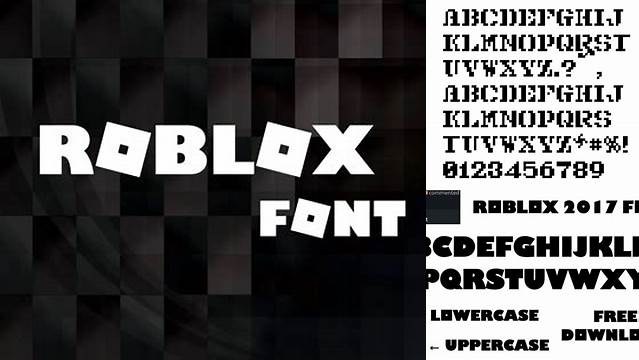
Hey guys! Are you looking to add that classic Roblox feel to your designs? Well, you've come to the right place! In this article, we're diving deep into everything you need to know about Roblox pixel fonts, including where to find them, how to use them, and why they're so darn cool. So, buckle up and let's get started!
1. What is a Roblox Pixel Font?
Let's kick things off by understanding what we mean by a Roblox pixel font. Imagine those retro video games with their blocky, 8-bit text β that's the essence of a pixel font. A pixel font is a typeface designed where each character is made up of individual pixels, giving it a distinct, vintage look. In the context of Roblox, these fonts mimic the style often found in the game's interface, older games within the platform, or fan-made creations that aim for that nostalgic vibe. Using a Roblox pixel font can instantly transport your audience back to the golden age of gaming, making it a powerful tool for branding, graphics, and content creation. Think about how many iconic games use pixel fonts β itβs a visual shorthand for retro gaming, and incorporating that into your projects can be super effective.
2. Why Use Pixel Fonts for Roblox-Related Projects?
So, why should you even bother with pixel fonts for your Roblox-related projects? There are actually several compelling reasons. First off, it's about authenticity. If you're creating fan art, thumbnails, or even your own Roblox-inspired game, using a pixel font instantly connects your work to the platform's aesthetic. It's like using the right colors or character designs β it just feels right. Secondly, pixel fonts are incredibly versatile. They can evoke nostalgia, convey a sense of simplicity, or even add a touch of whimsy to your designs. Plus, theyβre super readable, especially in smaller sizes, which makes them perfect for on-screen text in games or graphics. Imagine crafting a Roblox game trailer β a pixel font in the title card immediately signals to your audience that this is something they'll resonate with. Furthermore, using the correct font can help establish a consistent visual language across all your Roblox-related endeavors, reinforcing your brand identity and making your content instantly recognizable. So, yeah, pixel fonts are pretty awesome for this stuff.
6. Using Pixel Fonts in Roblox Studio
Now, let's talk about using those pixel fonts directly in Roblox Studio. If you're creating games or experiences on the Roblox platform, incorporating a pixel font can add a real retro touch to your UI, dialogues, and in-world text. However, Roblox Studio doesn't directly support custom fonts in the traditional sense. Instead, you'll often need to use image labels or text labels and manually create your text using a pixel font in an image editing program like Photoshop or GIMP. This might sound a bit tedious, but it gives you a ton of control over the appearance of your text. Another option is to use plugins or scripts that allow for custom font rendering within Roblox Studio. These can be a bit more technical to set up, but they can streamline the process of using pixel fonts in your projects. Just remember to optimize your text for readability, especially on different screen sizes. A crisp pixel font can look fantastic, but a blurry or illegible one will detract from your game's overall appeal. So, experiment, iterate, and find the perfect balance for your Roblox creations!
7. Creating Pixel Art with Pixel Fonts
Did you know that pixel fonts can also be a fantastic tool for creating pixel art itself? Think about it β each character in a pixel font is essentially a mini pixel art design. You can use these characters as building blocks to create larger images, patterns, and even animations. For example, you could use a pixel font to create the outlines of a character or object, and then fill in the details with individual pixels. Or, you could use different characters from a font to create textures and shading effects. The possibilities are truly endless! Plus, using pixel fonts in this way can give your pixel art a unique and consistent style. It's a great way to add a retro flair to your artwork, whether you're creating game assets, social media graphics, or just having fun. So, next time you're looking for a new way to approach pixel art, consider giving pixel fonts a try. You might be surprised at what you can create!
8. Free Pixel Font Generators
If you're feeling extra creative, why not try your hand at designing your own pixel font? There are several free pixel font generators available online that make the process surprisingly easy. These tools typically provide a grid-based interface where you can draw each character pixel by pixel. You can adjust the size of the grid, the thickness of the pixels, and even the spacing between letters. Some generators also offer advanced features like kerning adjustments and font preview options. Creating your own font gives you complete control over its design, allowing you to craft a typeface that perfectly matches your project's aesthetic. Plus, it's a fun way to learn about typography and the intricacies of font design. Once you've finished creating your font, you can usually download it in a standard format like .ttf or .otf, making it compatible with most design software. So, if you're looking to add a truly unique touch to your projects, consider giving a pixel font generator a whirl. You might just discover your inner font designer!
9. Best Pixel Fonts for Retro Games
When it comes to retro games, the right pixel font can make all the difference. It's not just about readability; it's about capturing the nostalgic feel of those classic titles. So, what are some of the best pixel fonts for retro games? One popular choice is "Press Start 2P," a font that perfectly mimics the 8-bit style of old-school arcade games. It's clean, crisp, and instantly recognizable. Another great option is "8Bit Operator," which has a slightly more rounded and friendly feel. If you're looking for something with a bit more character, "Fixedsys Excelsior" is a fantastic choice, inspired by the system font used in older versions of Windows. This font has a distinct, slightly gritty look that's perfect for games with a darker or more industrial tone. Remember, the best pixel font for your retro game will depend on its overall style and theme. Consider the era you're trying to evoke, the mood you're trying to create, and the readability of the font at different sizes. With a little experimentation, you'll find the perfect typeface to transport your players back in time!
30. The Best Free Resources for Learning More About Pixel Fonts
Want to become a pixel font expert? The good news is that there are tons of free resources available online to help you learn more! Websites like FontSpace and DaFont often have articles and tutorials about typography, including pixel fonts. You can also find helpful information on design blogs and forums. Look for articles about pixel font design, usage tips, and best practices. YouTube is another fantastic resource for learning about pixel fonts. There are many channels that offer tutorials on font design, typography, and retro graphics. Search for videos about creating pixel fonts, using pixel fonts in different design contexts, and troubleshooting common issues. Don't forget about online communities! Forums and social media groups dedicated to design, typography, and retro gaming are great places to ask questions, share your work, and connect with other enthusiasts. Remember, learning is a continuous process. Keep exploring, experimenting, and connecting with others, and you'll be well on your way to mastering the art of pixel fonts!